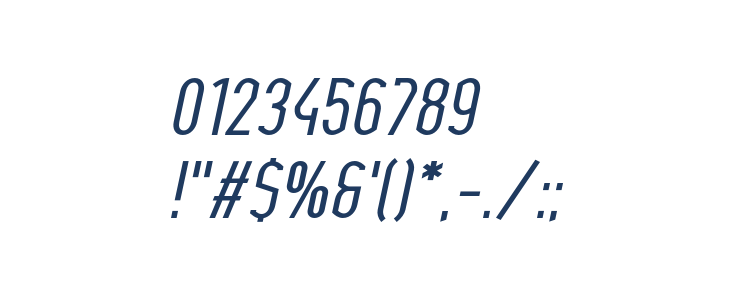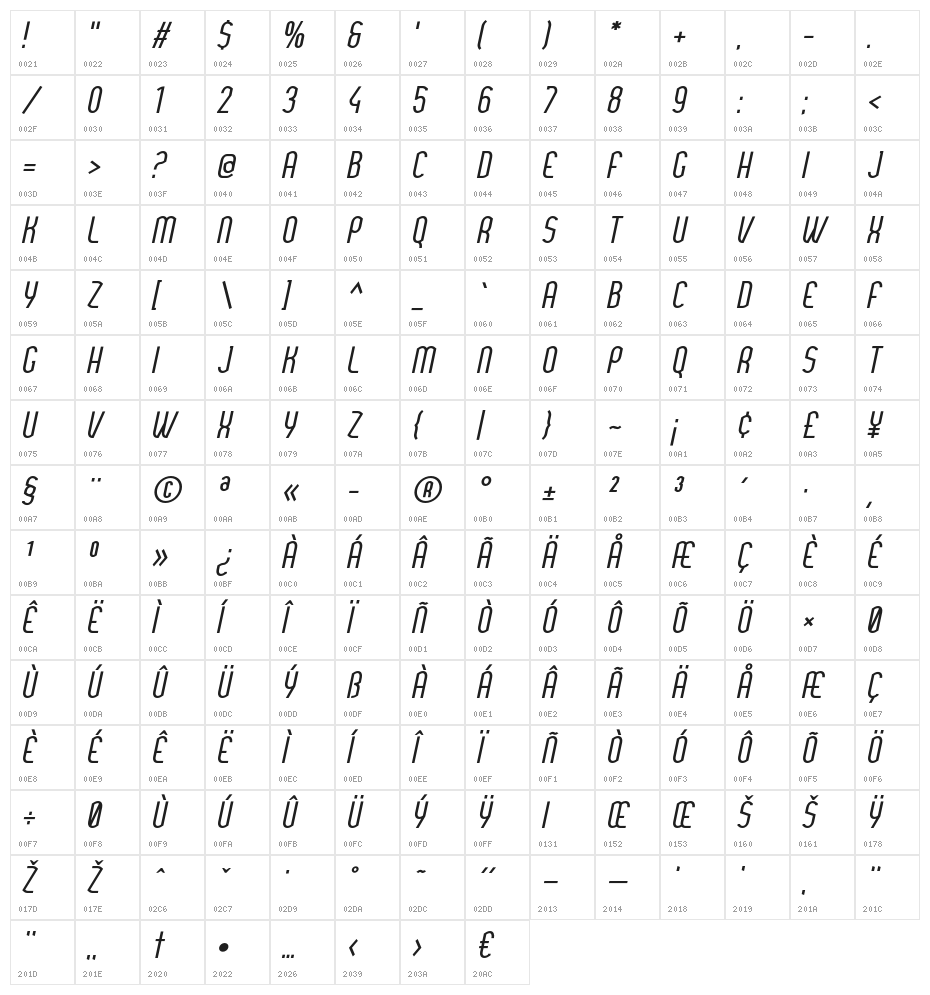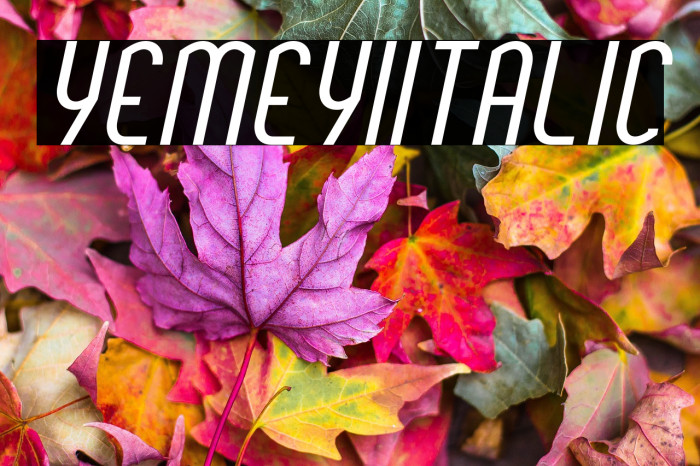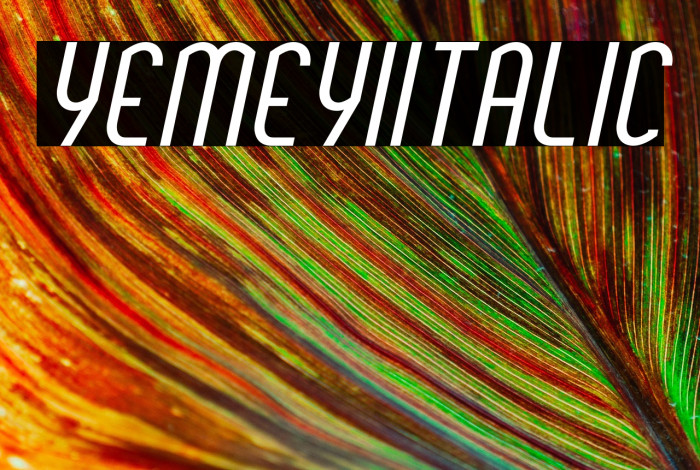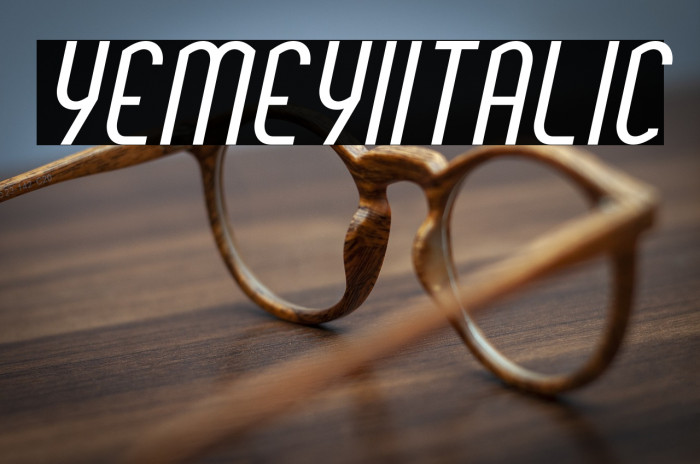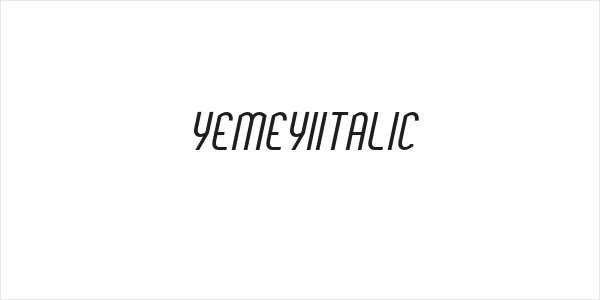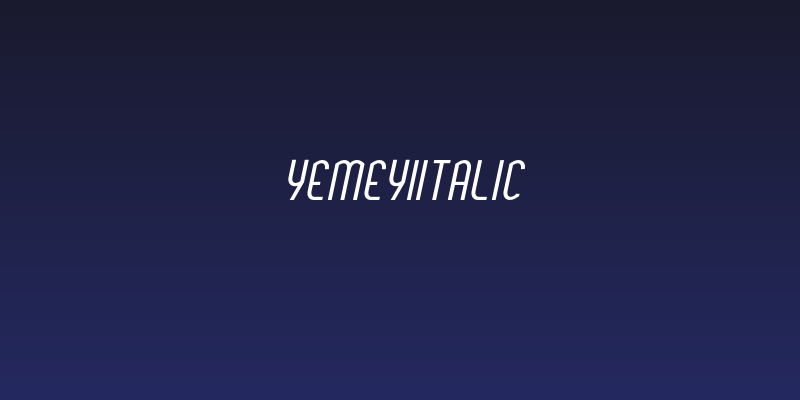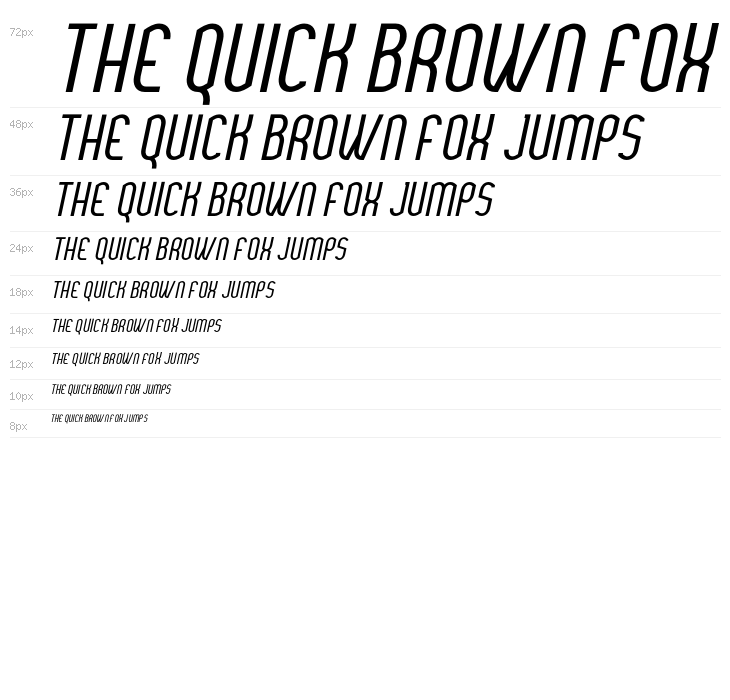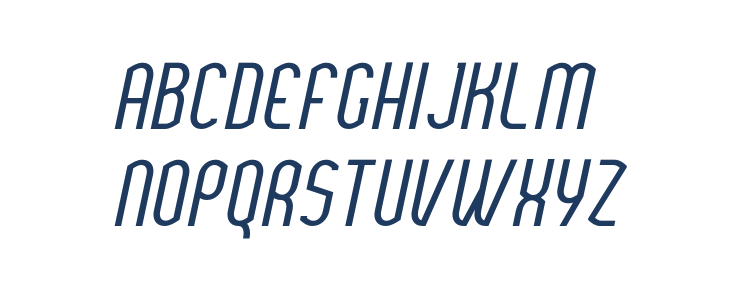
YemeyiItalic Font
YemeyiItalic Description
This font features a sleek, italicized design with elongated and slightly condensed letterforms. The strokes are consistent in width, giving it a uniform appearance. The characters have a modern and dynamic feel, with a slight slant that adds a sense of motion and energy. The numbers and special characters maintain the same stylistic approach, ensuring cohesion across all elements. This font is well-suited for projects that require a contemporary and stylish look, making it ideal for branding, advertising, and editorial design.
| Use Case | Headlines, Logos, Advertising |
| Proposed Projects | Ideal for branding, advertising, editorial design, and modern web design. |